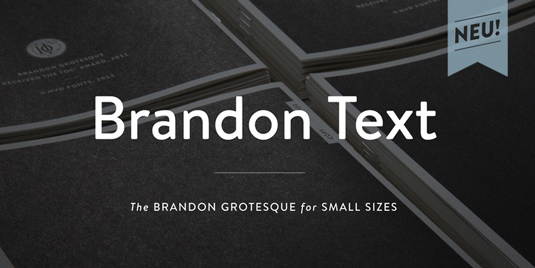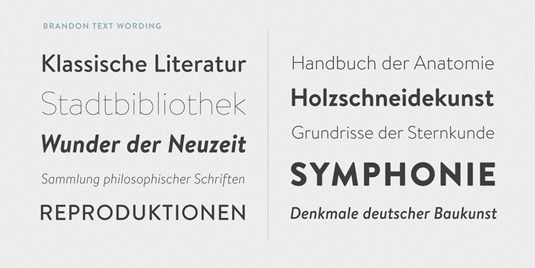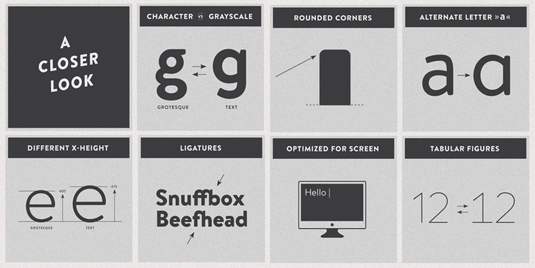
Font of the day: Brandon Text
Brandon Text by Hannes von Döhren
Today's typeface of choice is sans serif Brandon Text, created by type designer Hannes von Dohren. Available from MyFonts, Brandon Text is described as 'the companion of the famous Brandon Grotesque type family. It has a higher x-height than the Grotesque version and is optimized for long texts, small sizes and screens. Influenced by the geometric-style sans serif faces that were popular during the 1920s and 30s, the fonts are based on geometric forms that have been optically corrected for better legibility'.